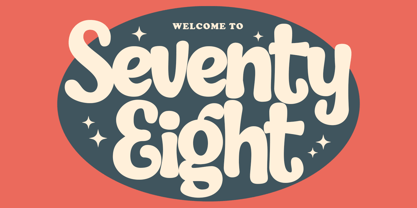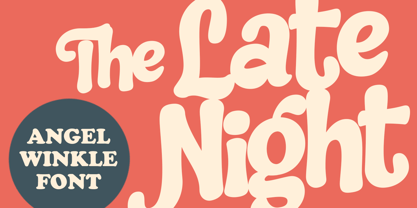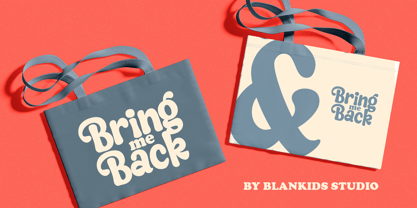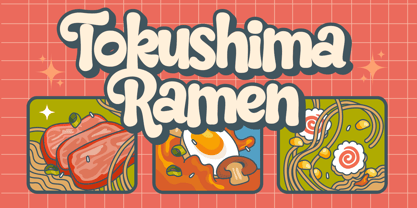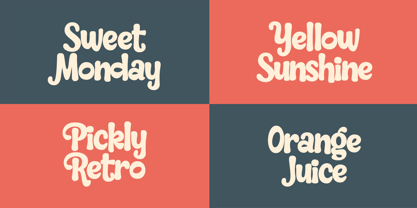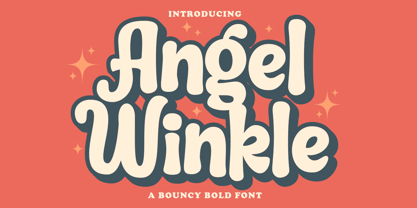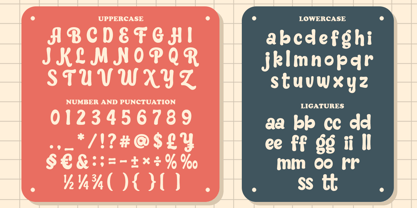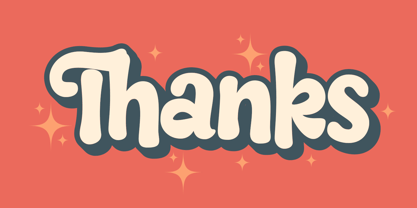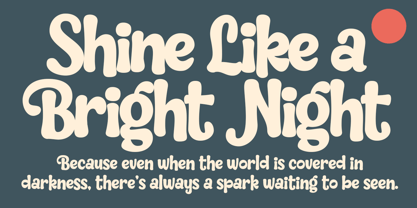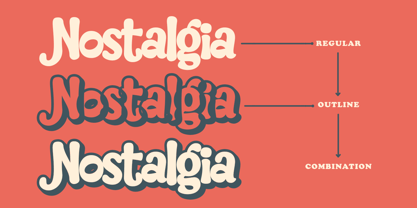
Angel Winkle
by Blankids
The Angel Winkle Font Family was designed by Bangkit Tri Setiadi and published by Blankids. Angel Winkle contains 2 styles and family package options.
Angel Winkle a Bouncy Bold Font is made for any professional project branding, such as logotype, watermarks, poster, branding, promotions, product packaging, etc. Every letter has a bouncy bold design.
Angel Winkle font includes a full set of bouncy bold uppercase and lowercase letters, numerals and punctuation. This font has a bouncy bold. See the previews above to get some inspiration on how to use them. Happy designing!
Designers: Bangkit Tri Setiadi
Publisher: Blankids
Foundry: Blankids
Design Owner: Blankids